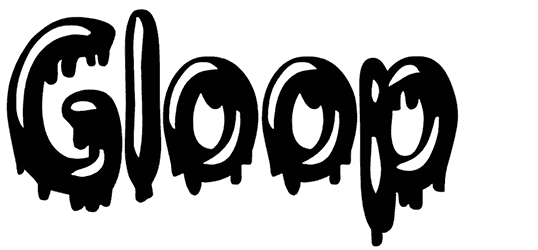
Gloop Font
Its dynamic impression makes it bright for movie titles, signs, or even Halloween flyers. Gloop, as a dripping font with a horror theme, can polish up your tasks and stay ahead of the curve on the surface.
Furthermore, this horror font with a complete set of alphabets is considered the finest and leading. Wait, take a look at the rest of our extensive cluster to see if it has any further horror fonts that you will be engaged in using.